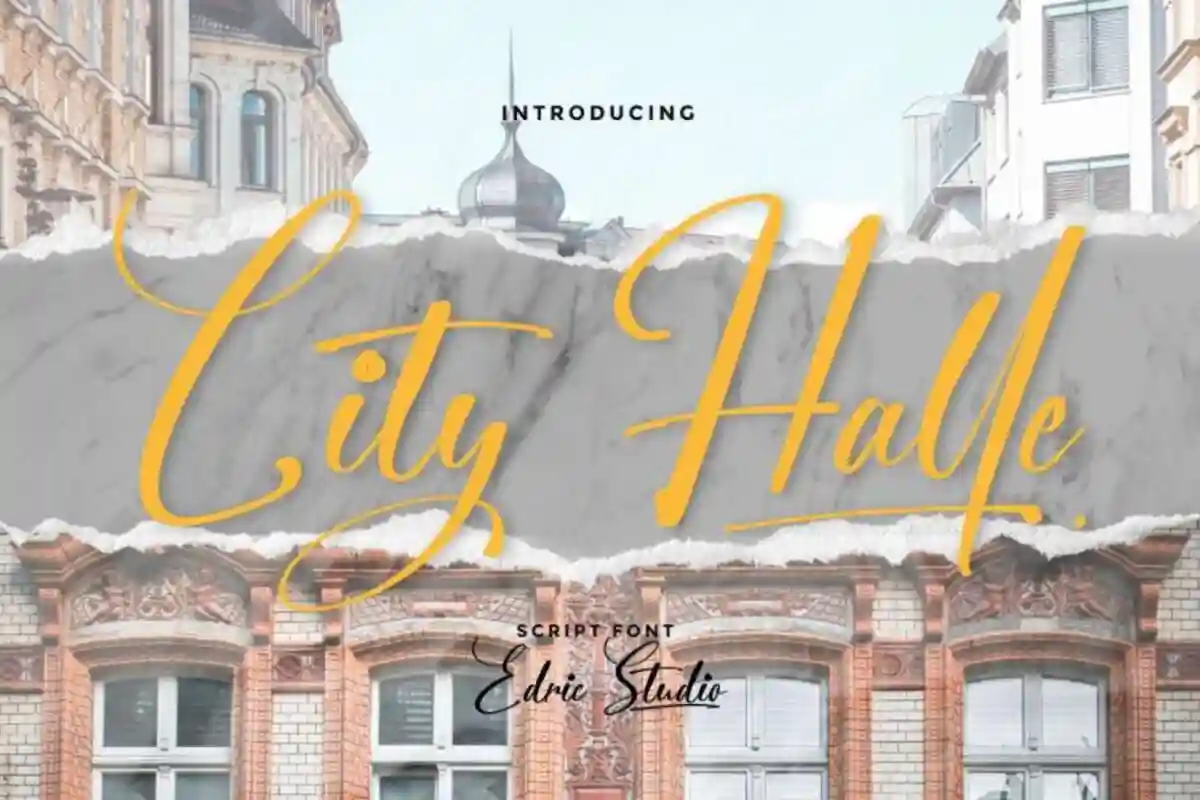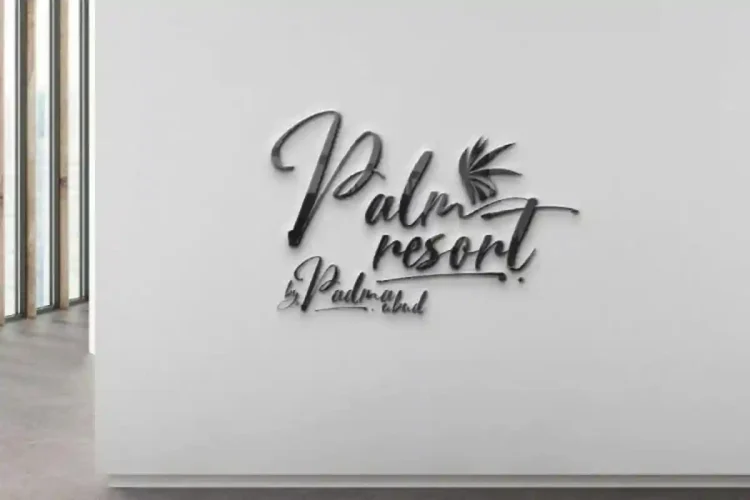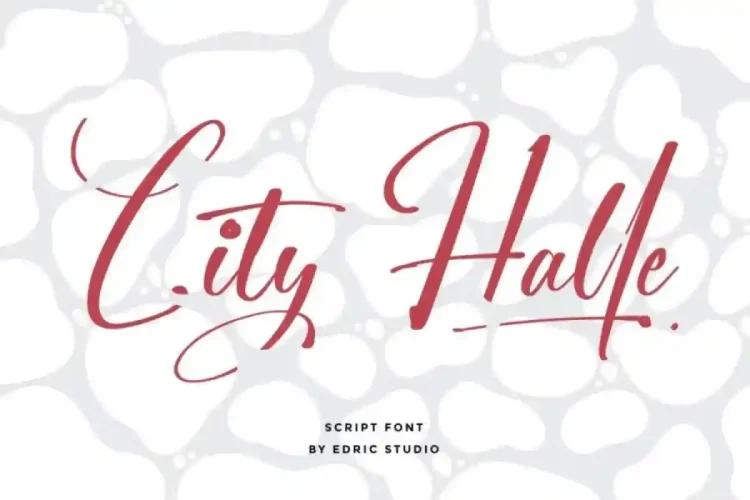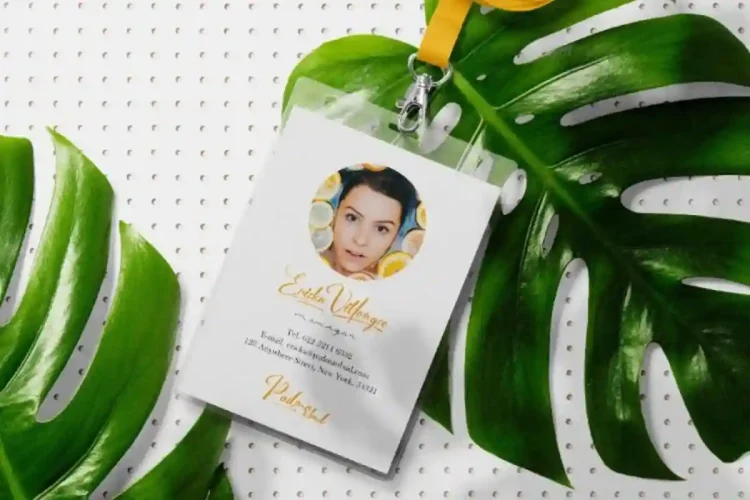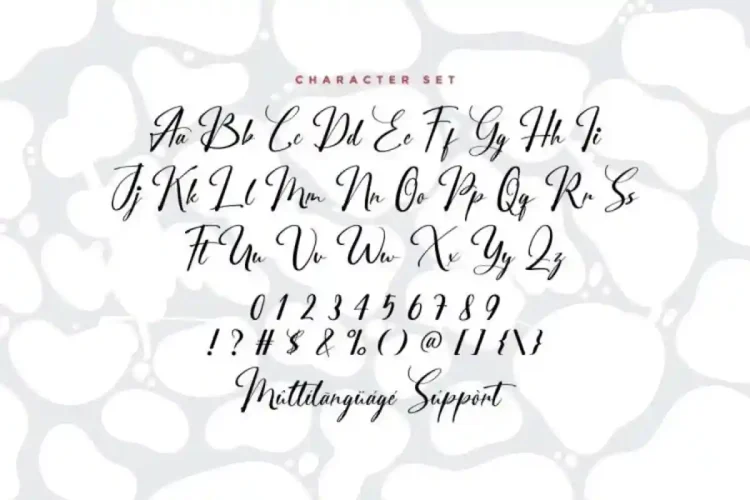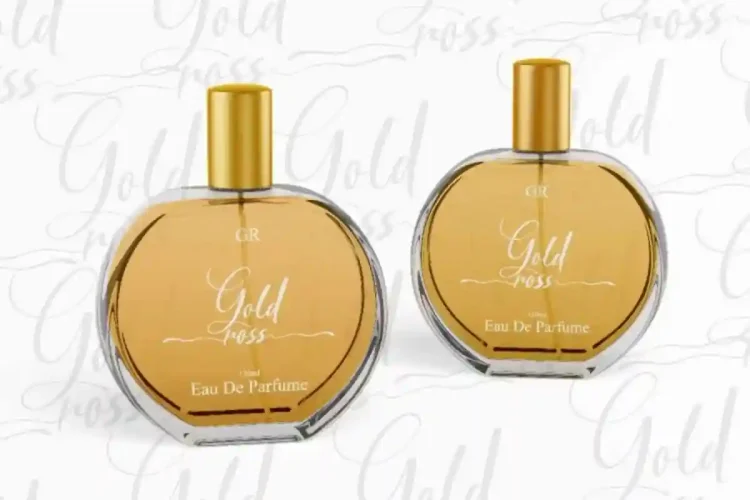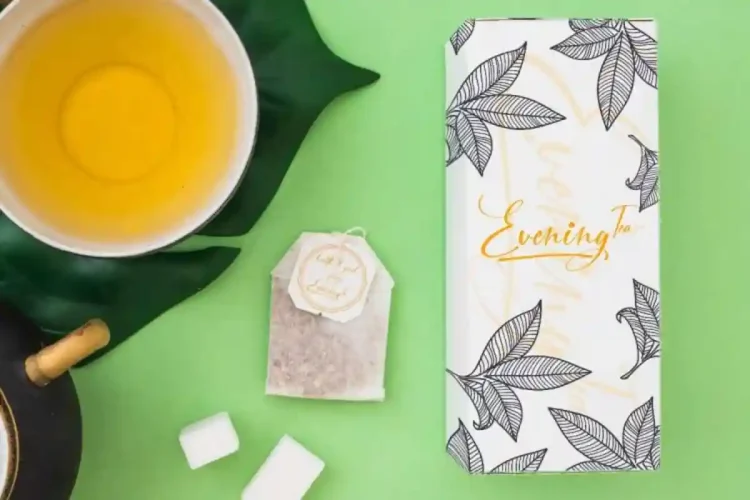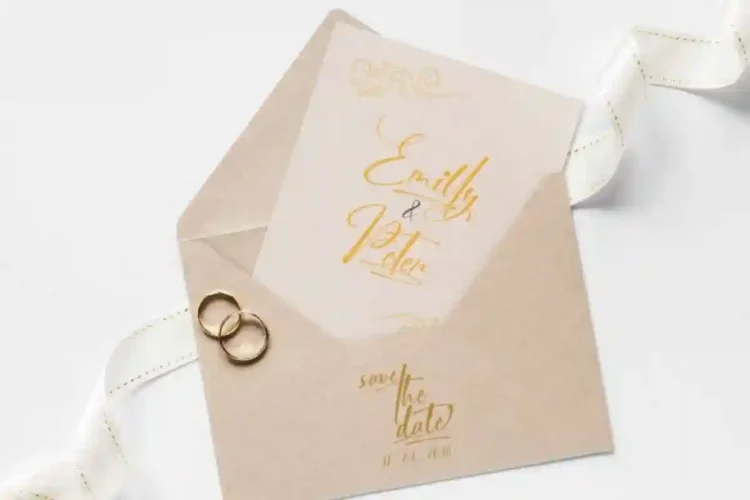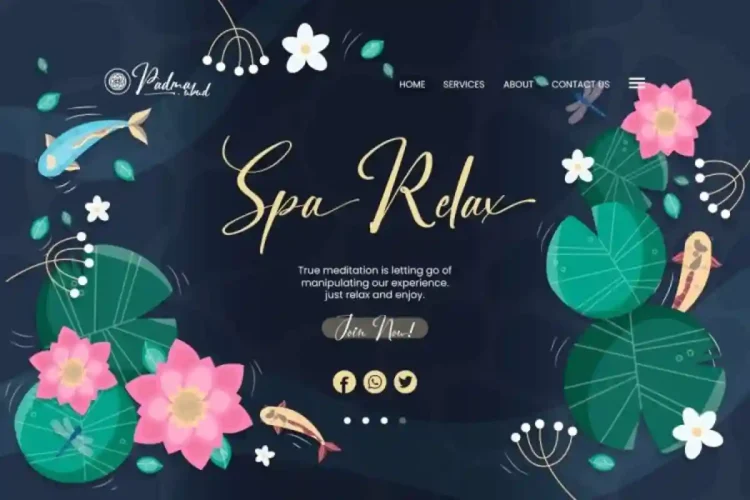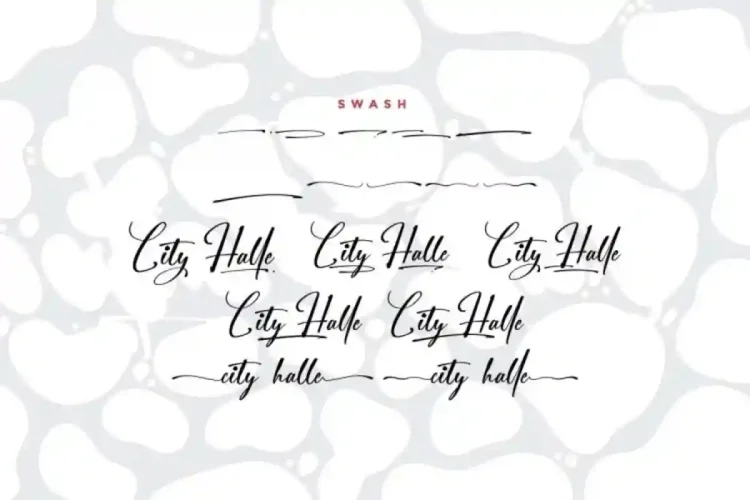
City Halle Font is modern calligraphy from Edric Studio, with beautiful and stunning handwritten style. This script suitable for any projects such as branding project, custom mug, greeting card, ID card, invitation card, label, logo, business card, poster, product packaging, quote, shopping bag, signage, special event, t-shirt, title, watermark. And for industries like, beauty care, cosmetic, florist and gardening, food and drink, homeware design, hotel, musician, perfume, jewelry, travel, wedding, photography, writer, and many more.
City Halle Font has exclusive handmade script letters with different natural look that is elegant, sophisticated style. It has a stunning characters set, perfectly managed with well spaced and kerning. City Halle Font includes all regular uppercase and lowercase characters, numerals, symbols and punctuation, lowercase stylistic alternates, double letter ligatures, regular swashes and also beginning and ending premade swashes for both the lowercase.